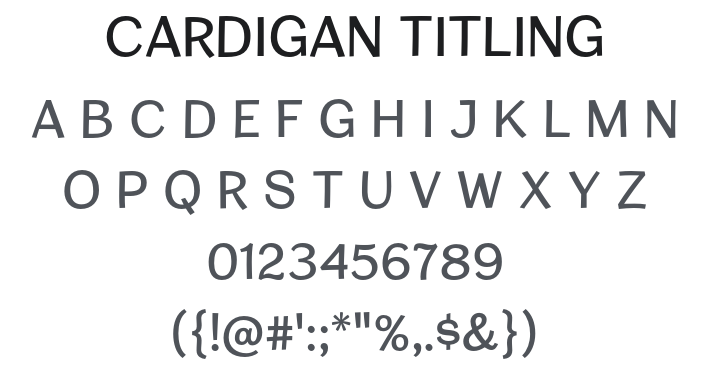
Cardigan Titling Font Family
About Cardigan Titling
Cardigan Titling is an all-caps display typeface that pairs warmth with clarity. A companion to the full Cardigan family, it retains the approachable charm of its parent design while refining it for clean, welcoming headlines. Three weights, Light, Regular, and Bold... offer flexibility from gentle elegance to confident impact.
Its softly shaped, readable forms make it ideal for lifestyle brands, book covers, editorial titles, and packaging that needs a friendly but polished tone. Supporting a wide range of Latin-based European languages and free for commercial use, Cardigan Titling is both versatile and accessible. For expanded styles and full lowercase support, the complete Cardigan family extends the palette even further.